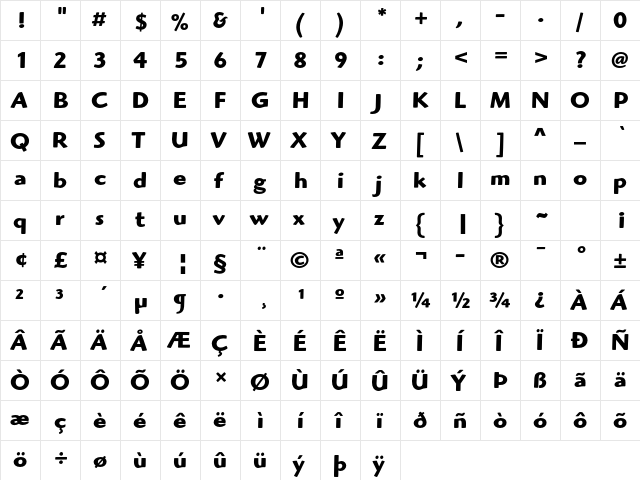
Highlander ITC Std Bold
| Designer | David Farey |
Design Context for Highlander ITC Std Typeface
Highlander ITC Std takes a measured approach to typography — its balanced proportions and neutral character make it a reliable workhorse for both digital and print work. Its bold stroke weight gives it real presence on the page.